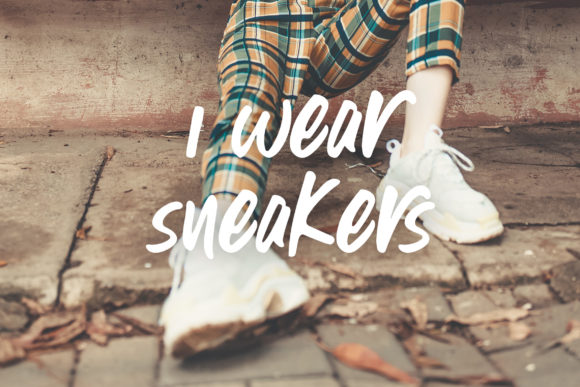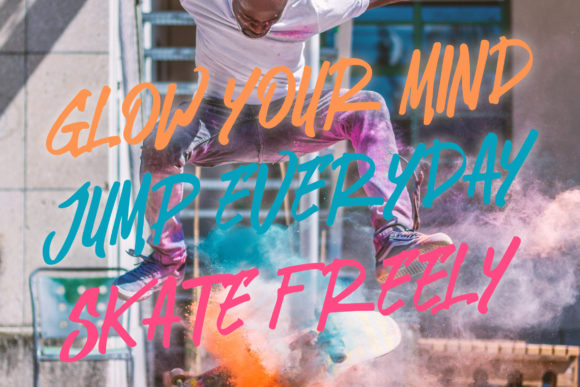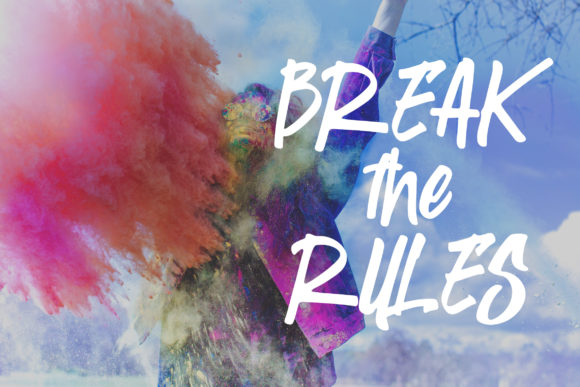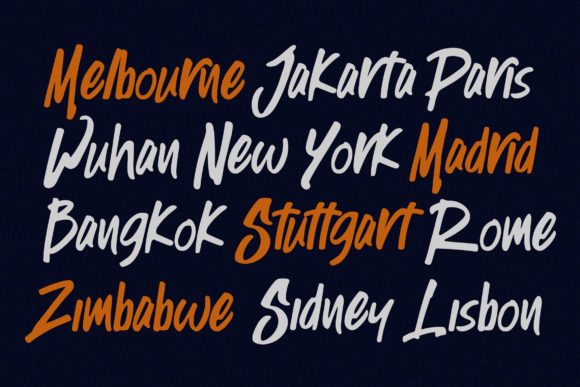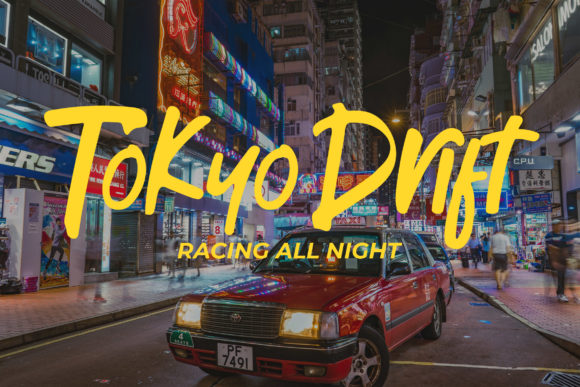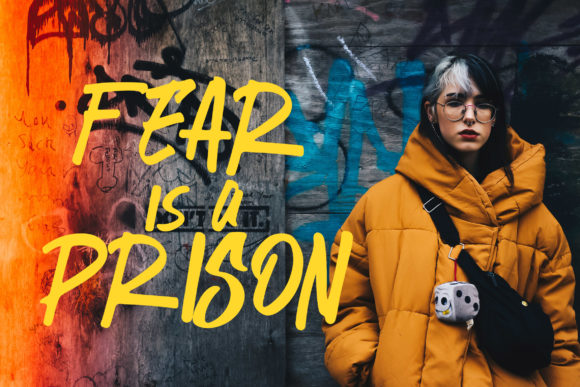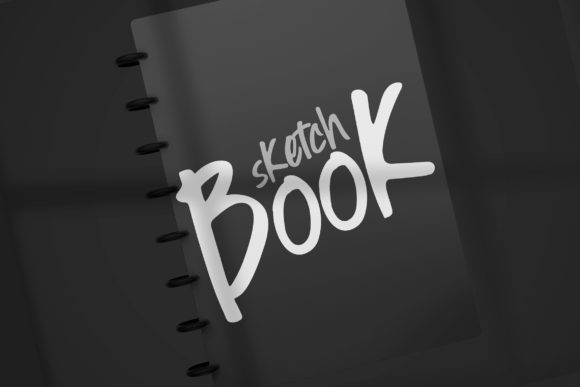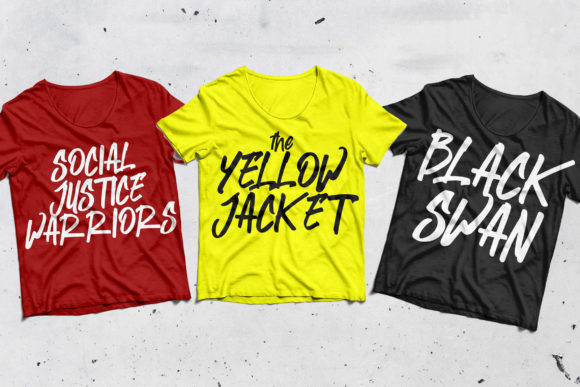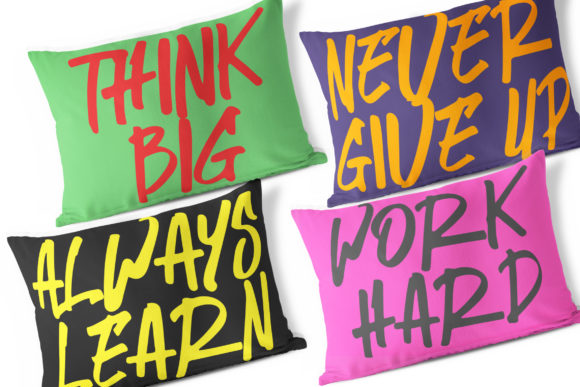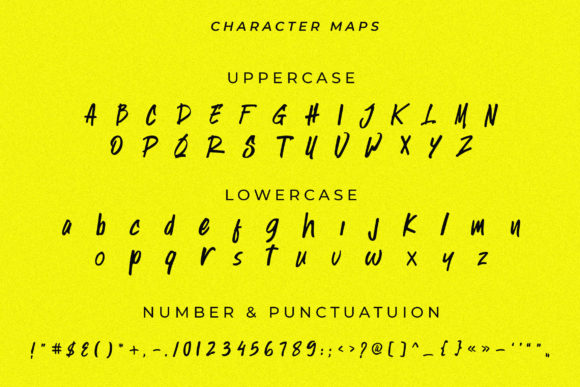
Stingker Jack Font
About Stingker Jack Font
Stingker Jack is a casual, fun script font, created by using a marker. Clean and a little bit quirky, this font is the perfect fit for all of your logos, branding, social media, and crafty DIY projects.